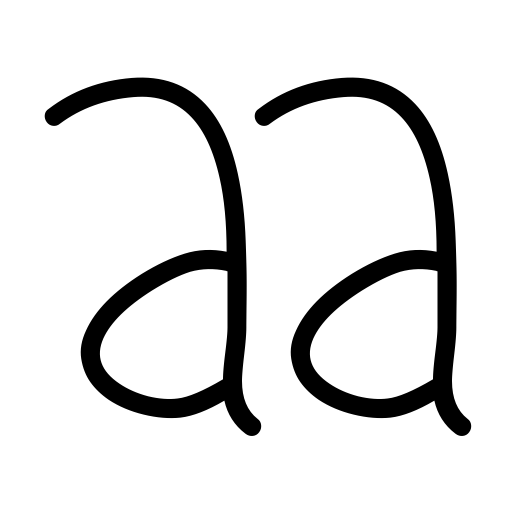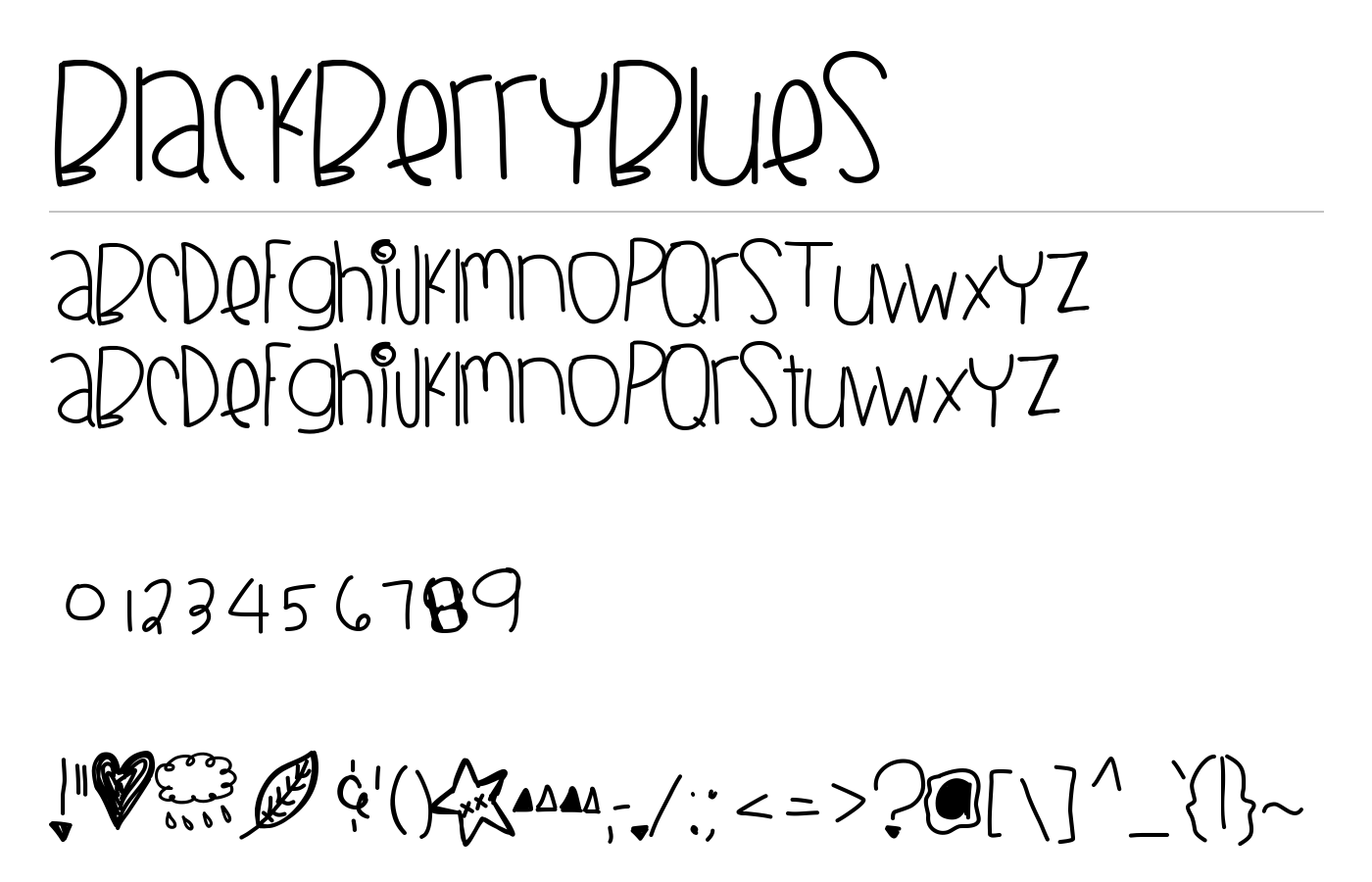
BlackberryBlues is a playful and whimsical handwritten sans-serif font with tall, narrow letterforms and a light, airy feel. Its casual, irregular strokes and unique character shapes give it a friendly, informal personality that works beautifully for creative projects, children's designs, and artistic branding. This font shines in contexts like invitations, posters, and packaging where a fun, approachable style is desired.
BlackberryBlues Font
About BlackberryBlues Font